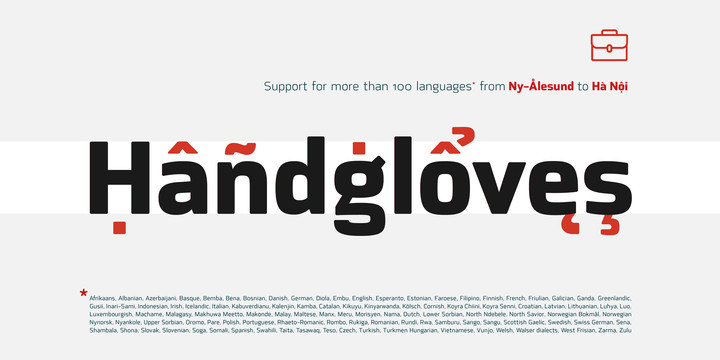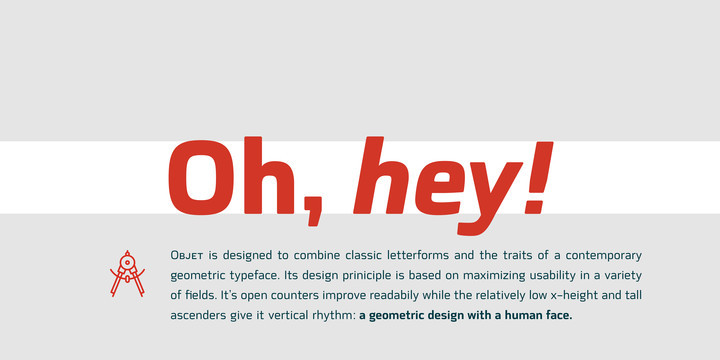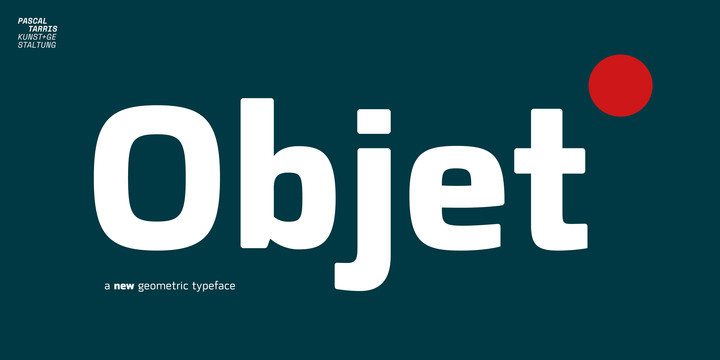
Objet Font Family
Inspired by the clarity of signage fonts, Objet Sans is a modern geometric typeface with a friendly rounded touch. It containts many OpenType features and an extensive character set that make it suitable for a variety of uses.